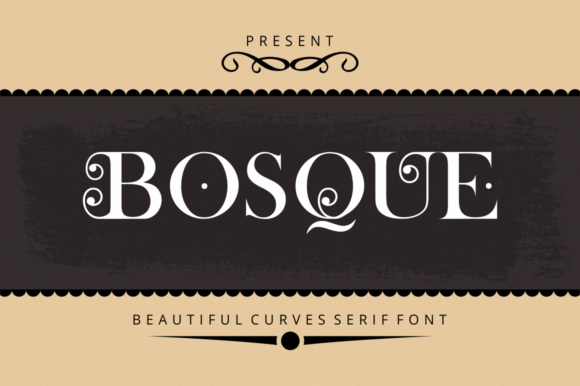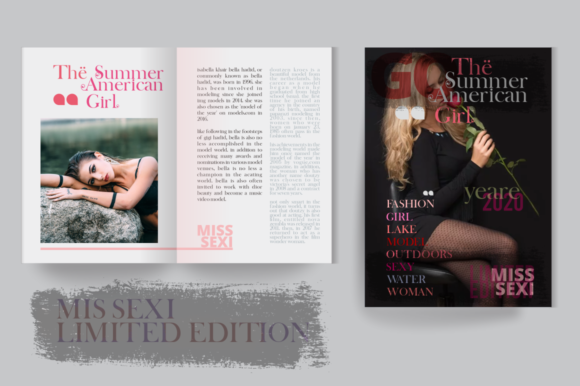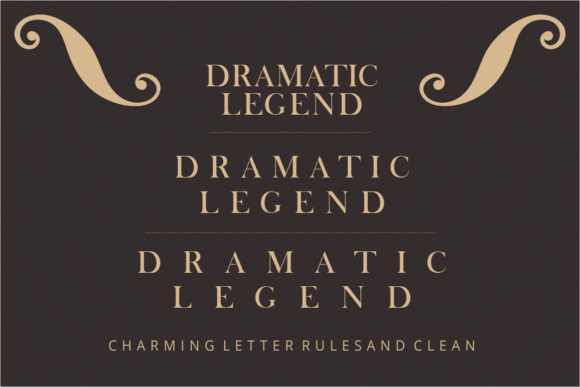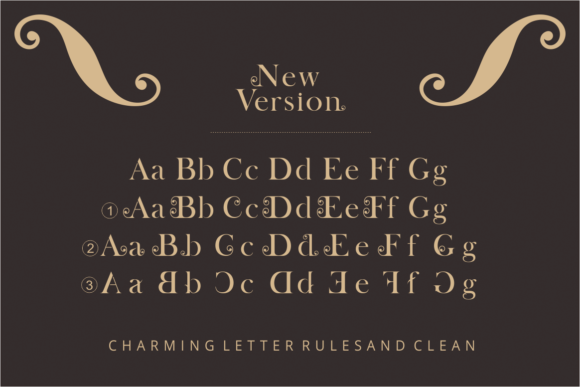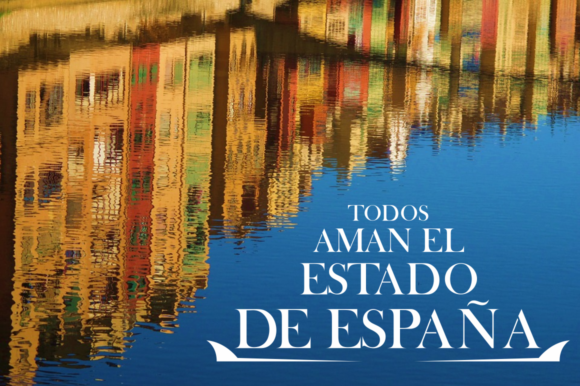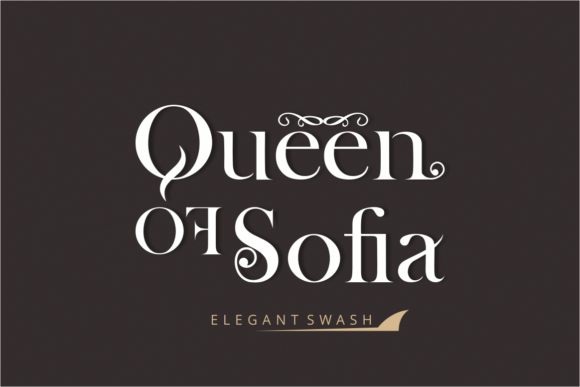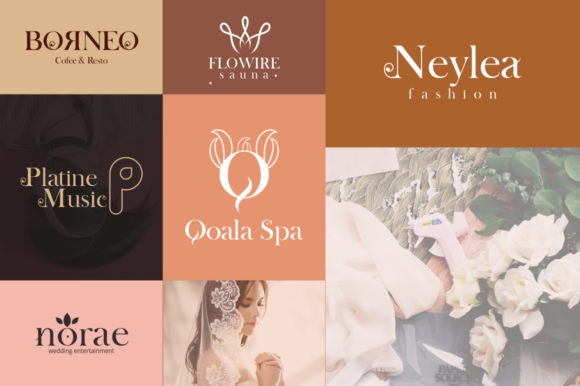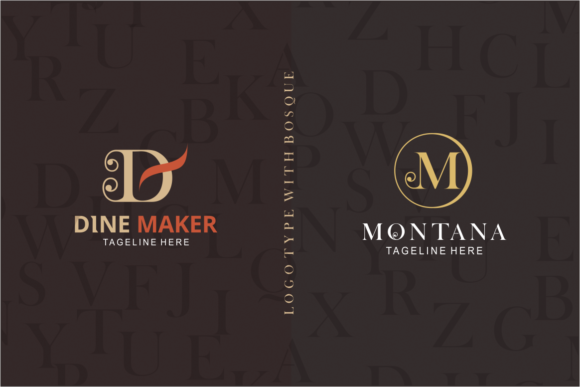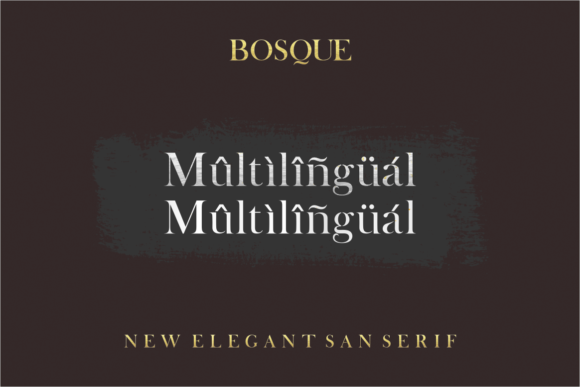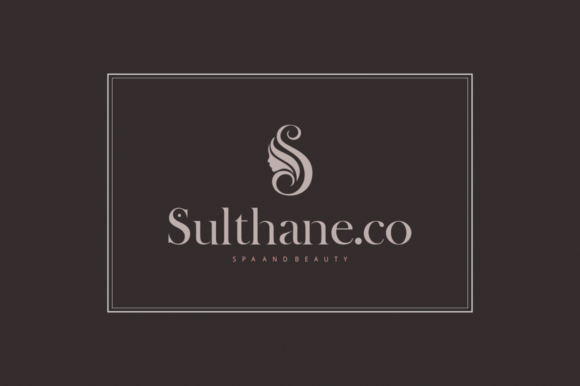
Bosque Font
About Bosque Font
Bosque is a gorgeously lettered sans serif with fantastic swashes and ornaments. It will look sophisticated on a wide range of design projects!